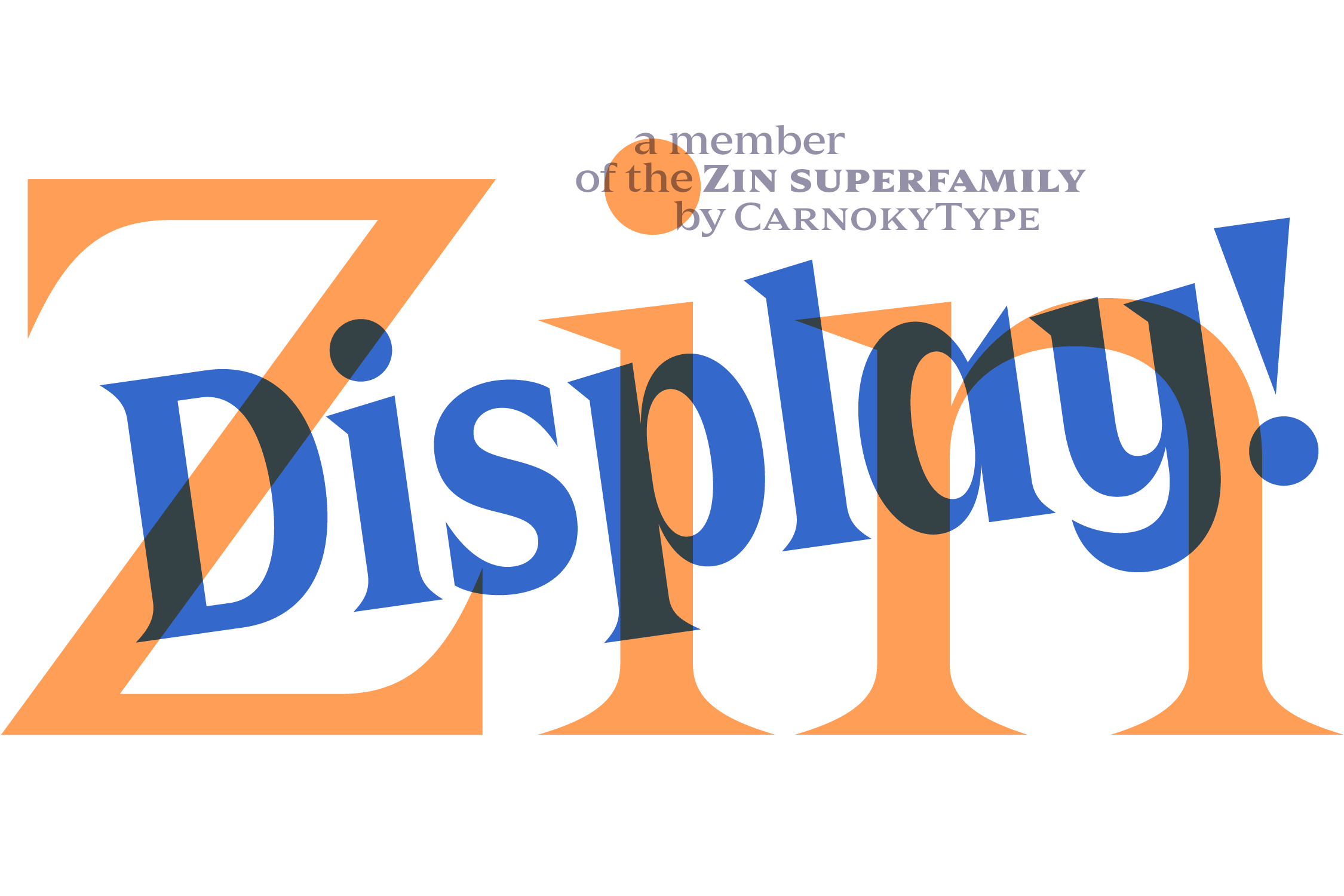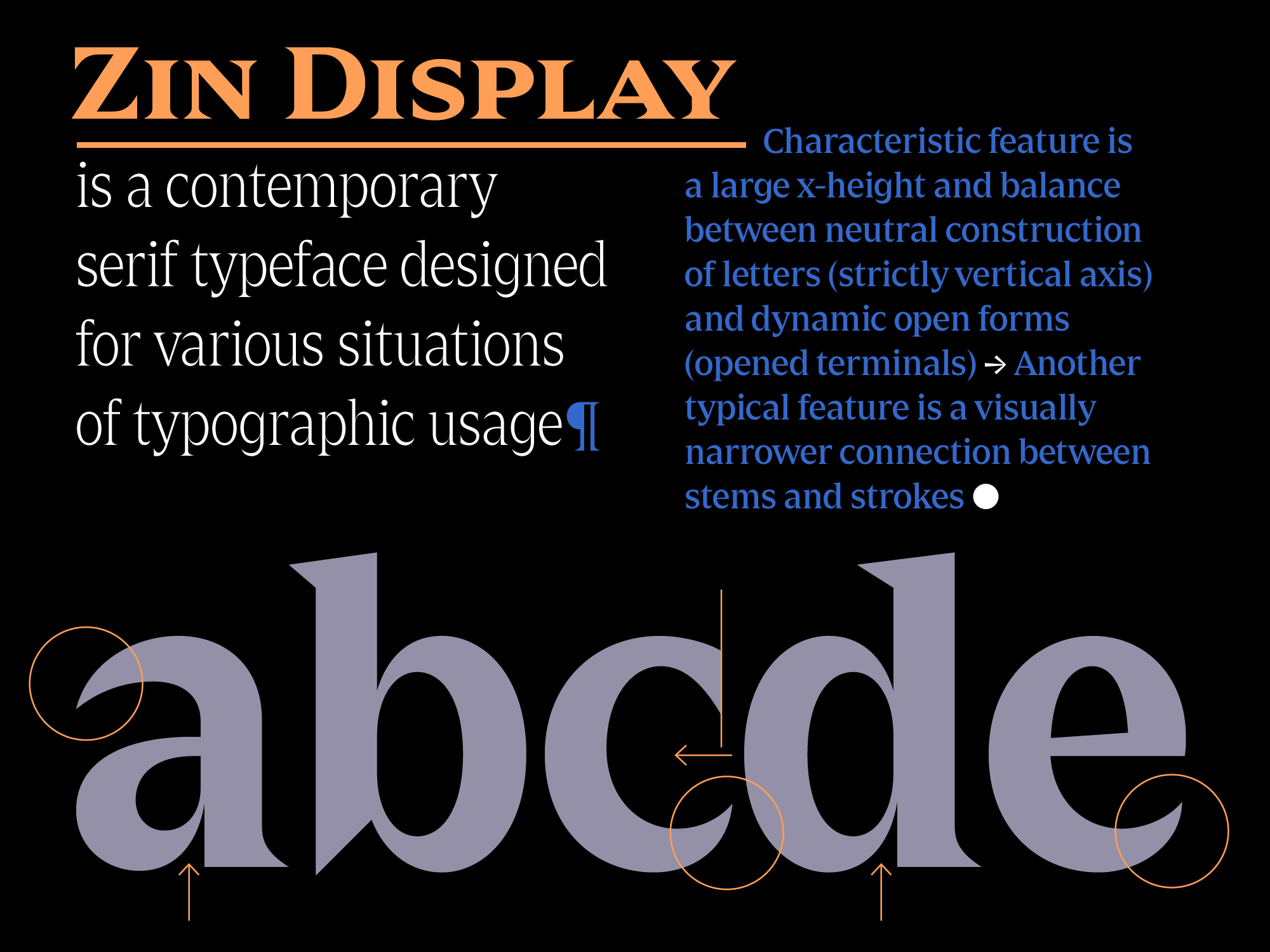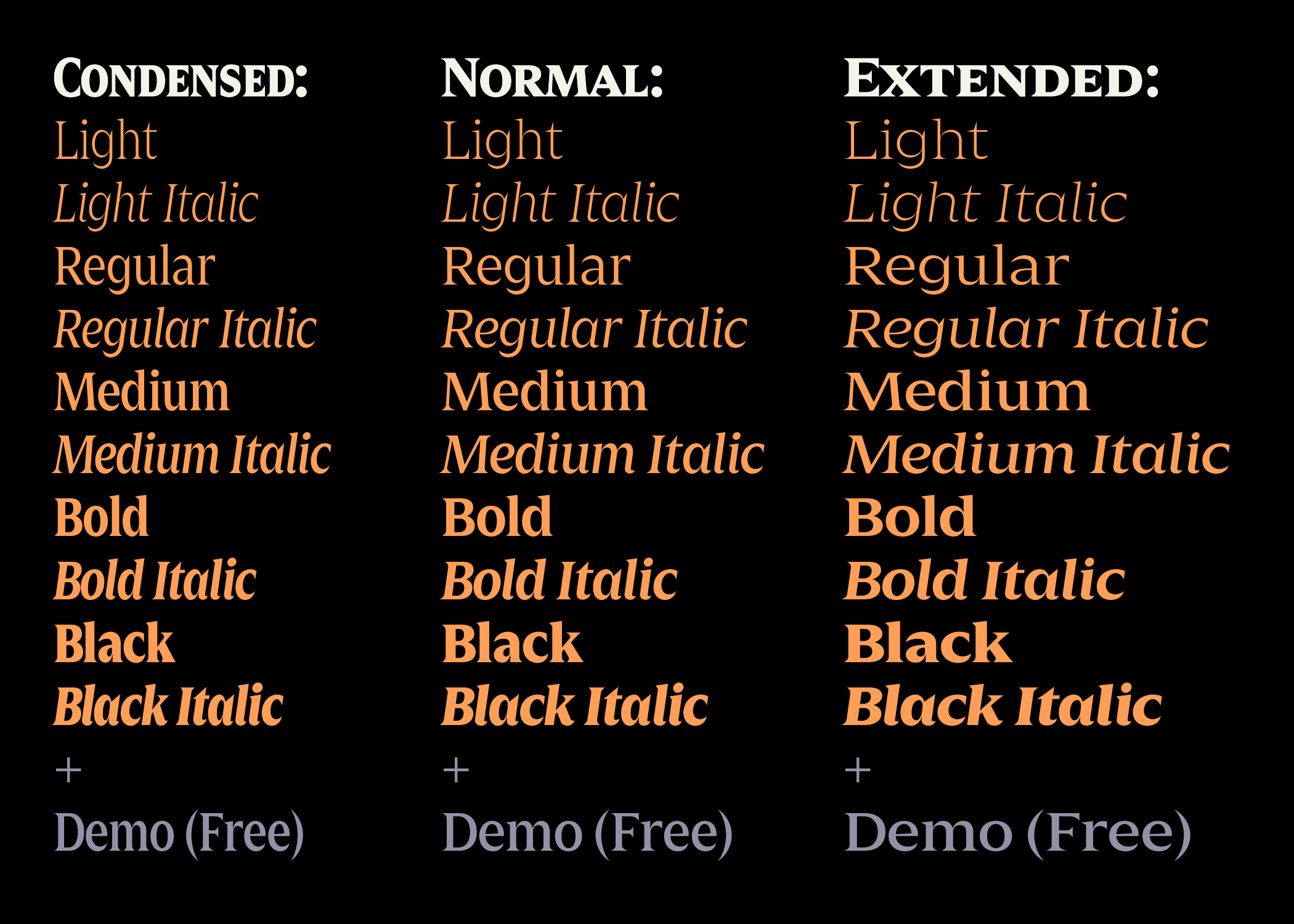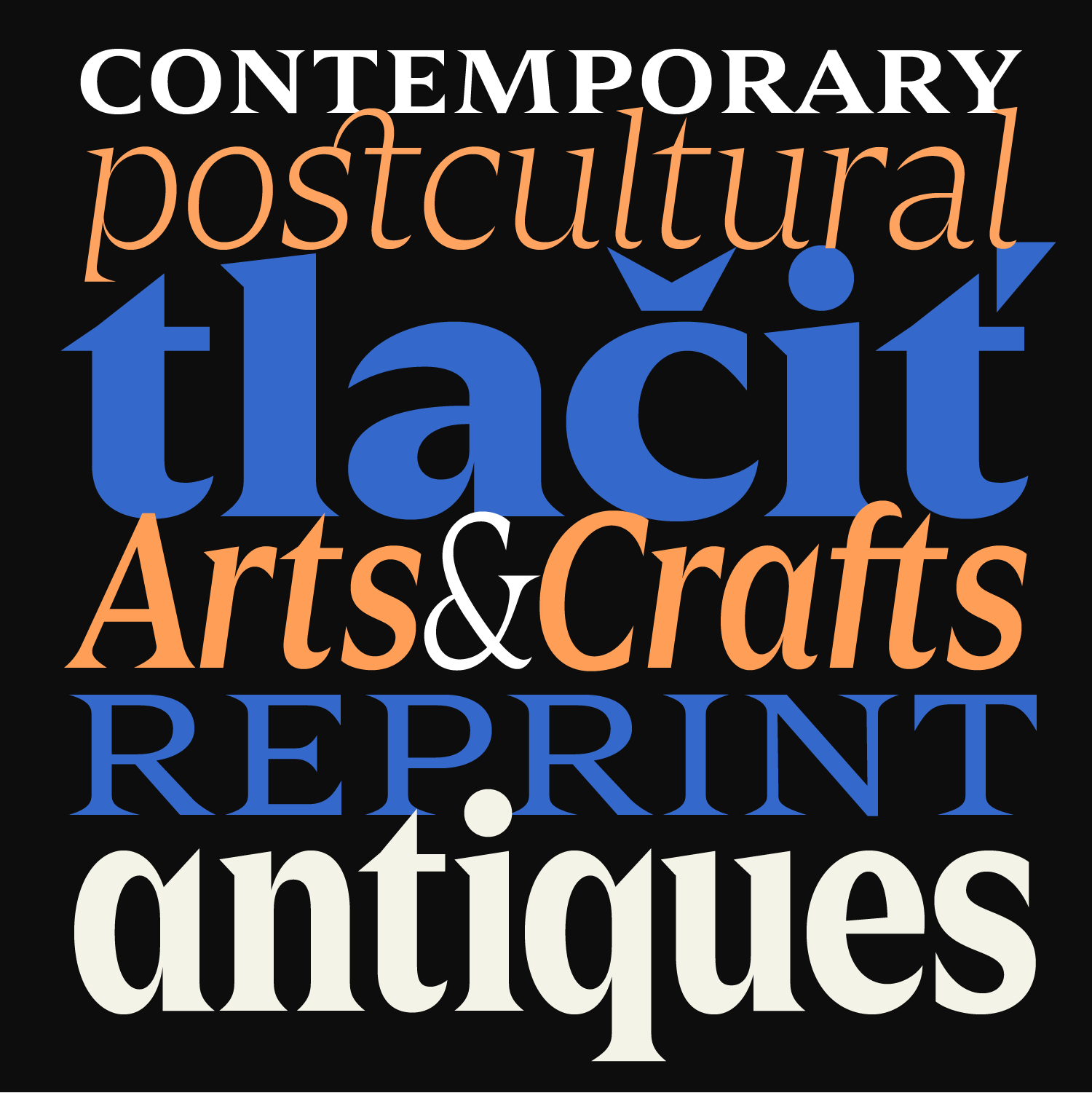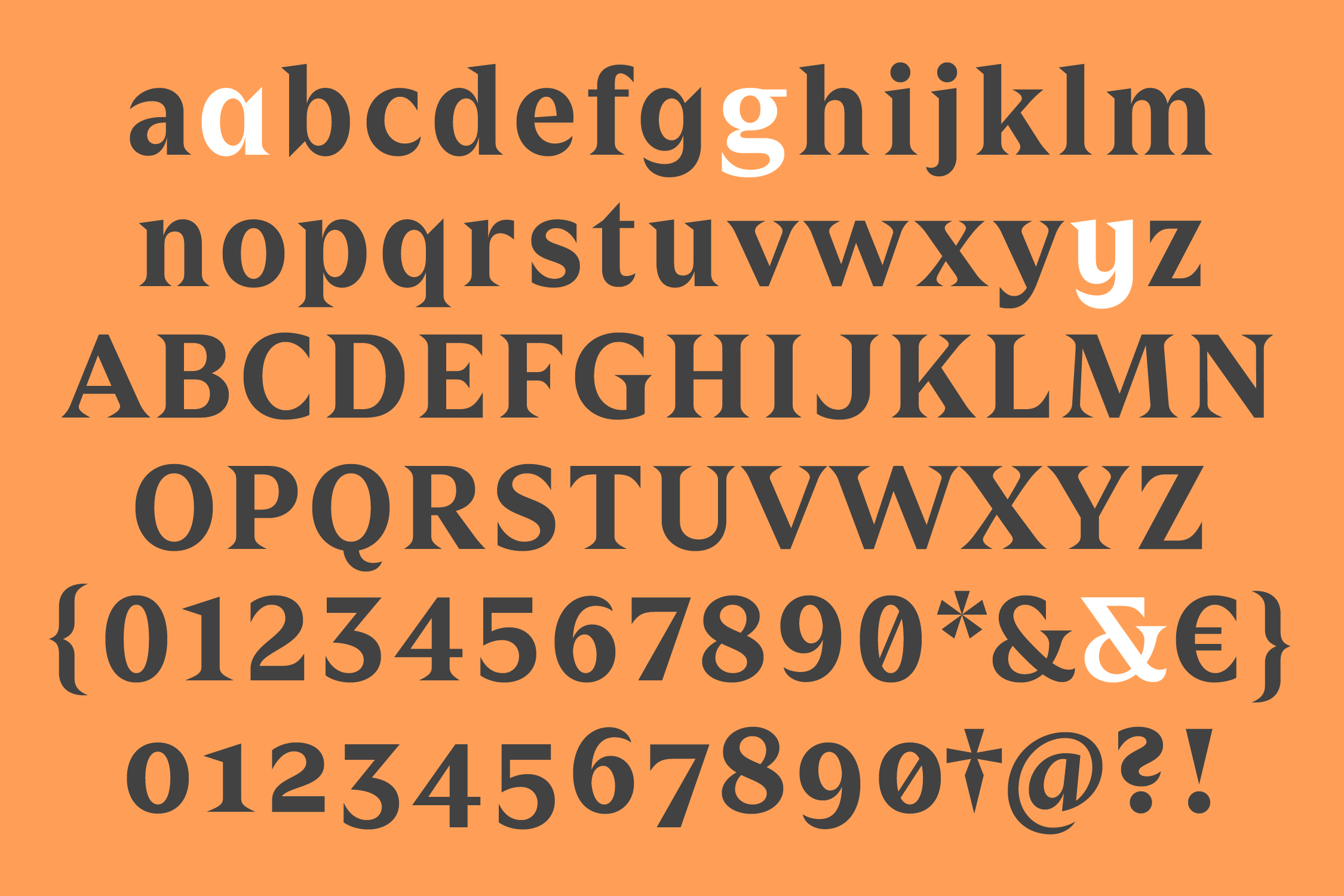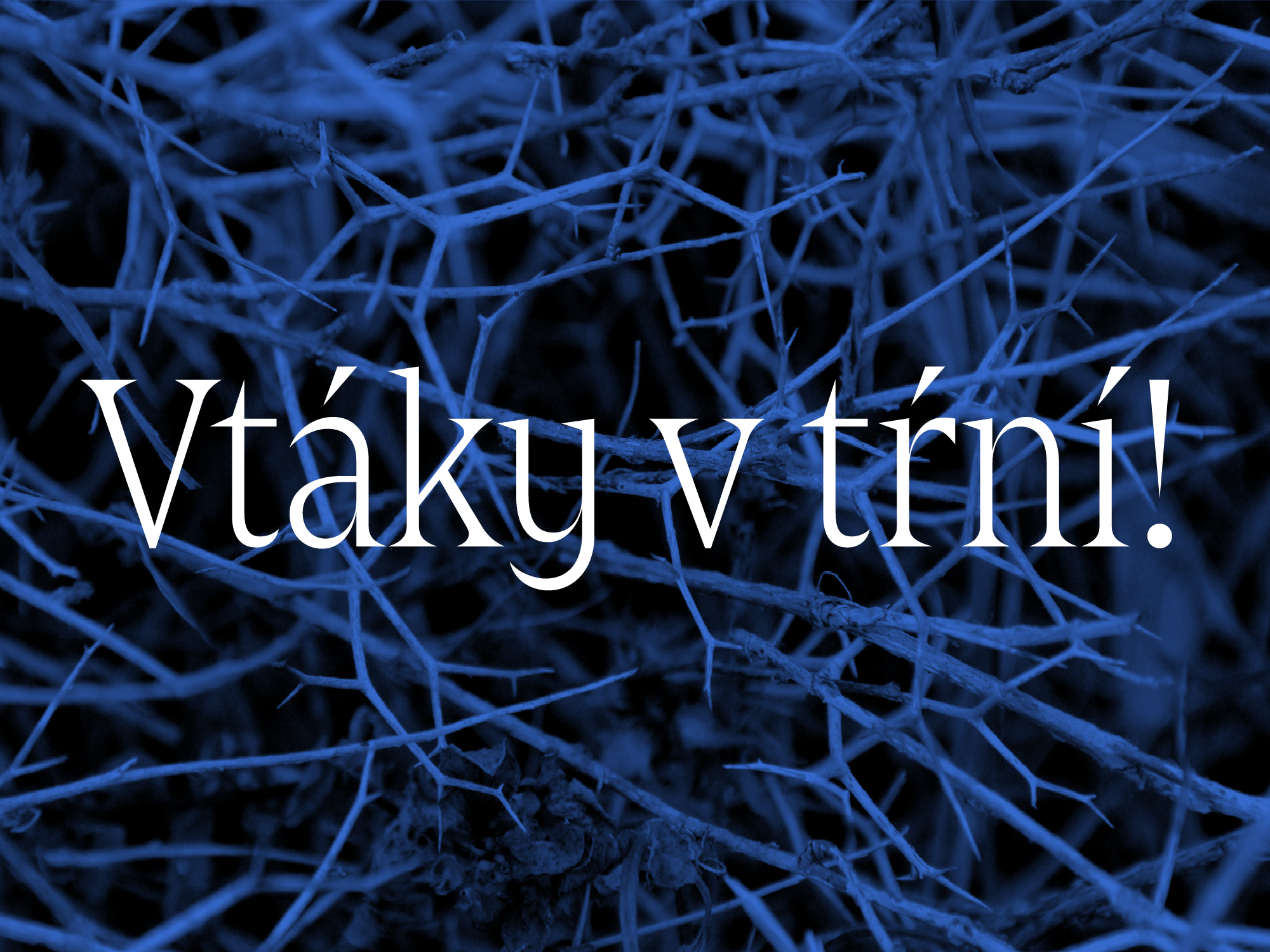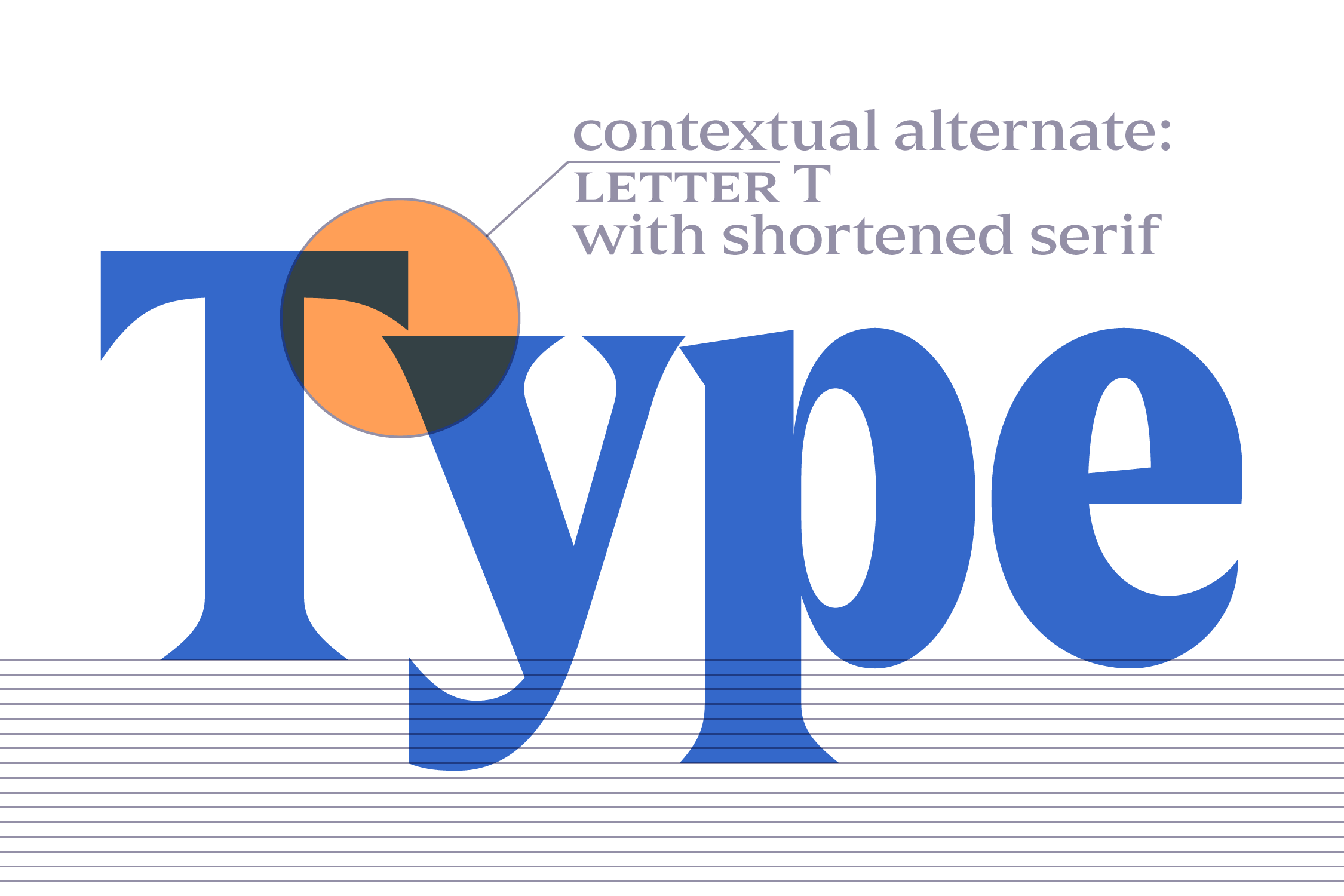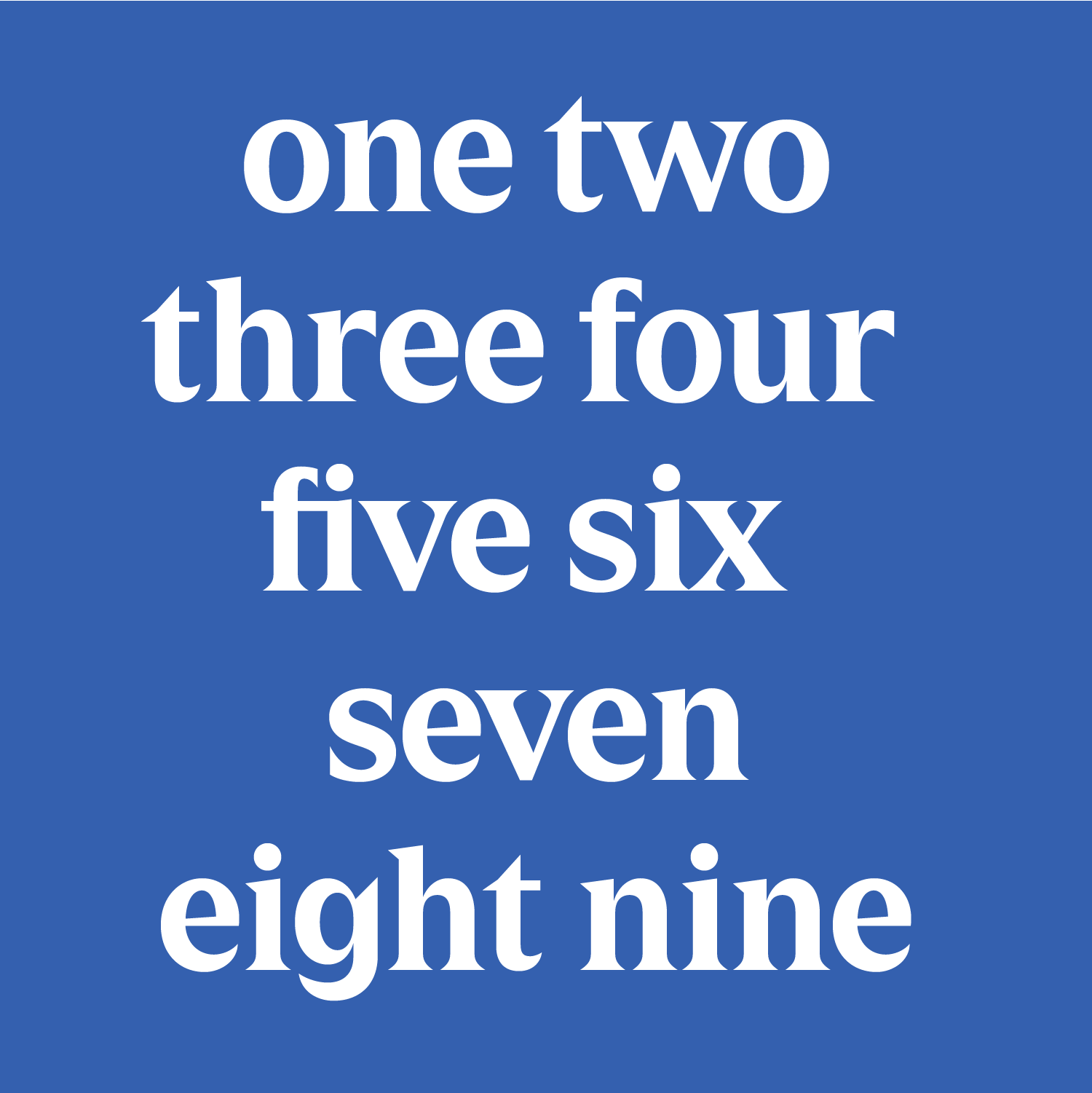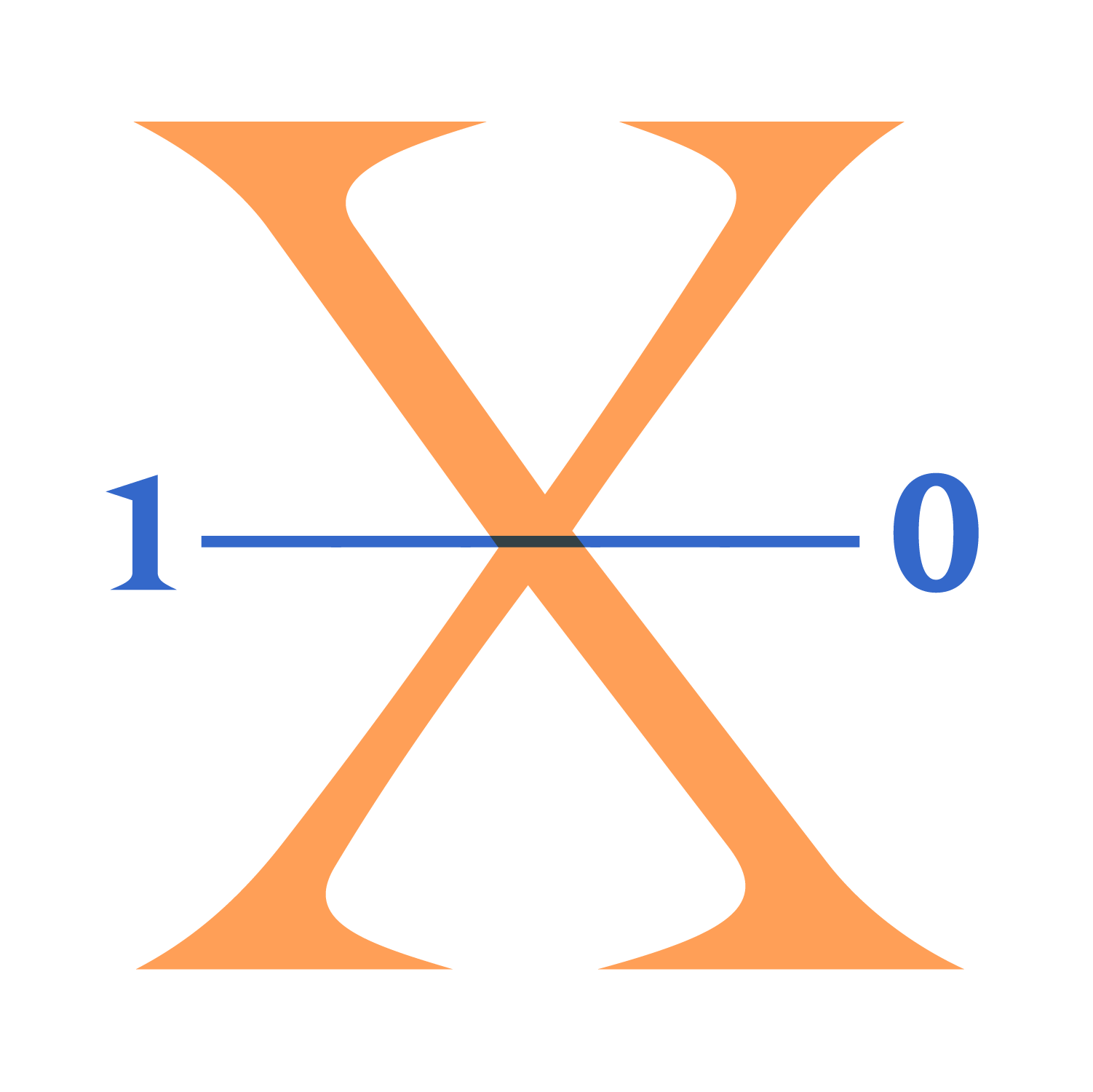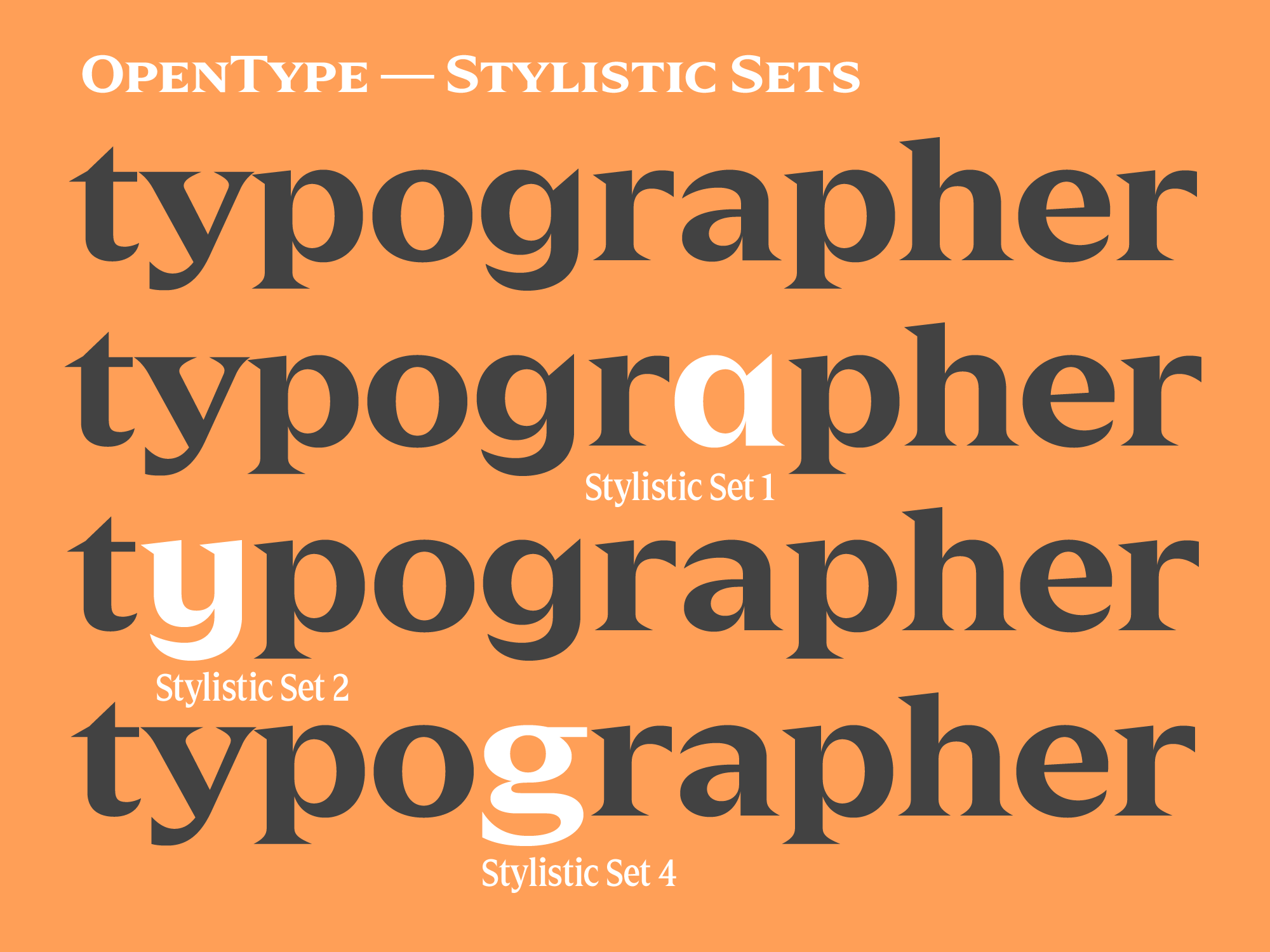
Zin Display
Zin Display is a contemporary typeface designed for various situations of typographic usage. Characteristic feature is a large x-height and balance between neutral construction of letters (strictly vertical axis) and dynamic open forms (opened terminals). Another typical feature is a visually narrower connection between stems and strokes. The complete font family consist of three width proportions (Normal, Condensed and Extended). Every sub-family has 5 weights, ranging from Light to Black with matching Italics. Zin Display can be effectively used especially for display typesetting but works for longer text as well. It can be used especialy in magazine layouts and editorial design, as well in advertising typography, orientation systems, corporate identities and many other situations. Zin Display is a member of the Zin super family, which also includes Zin Sans, Zin Slab and Zin Serif fonts.